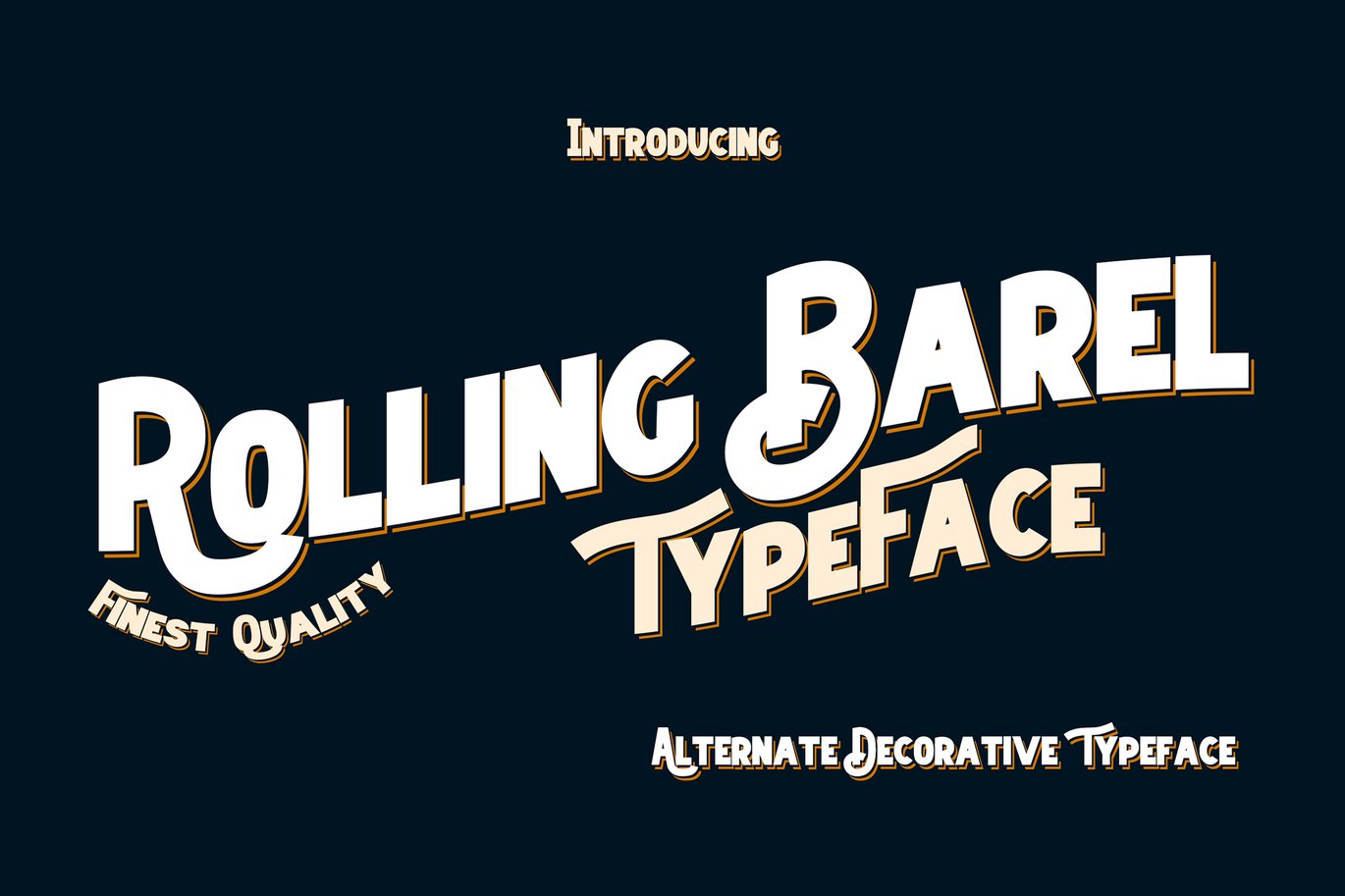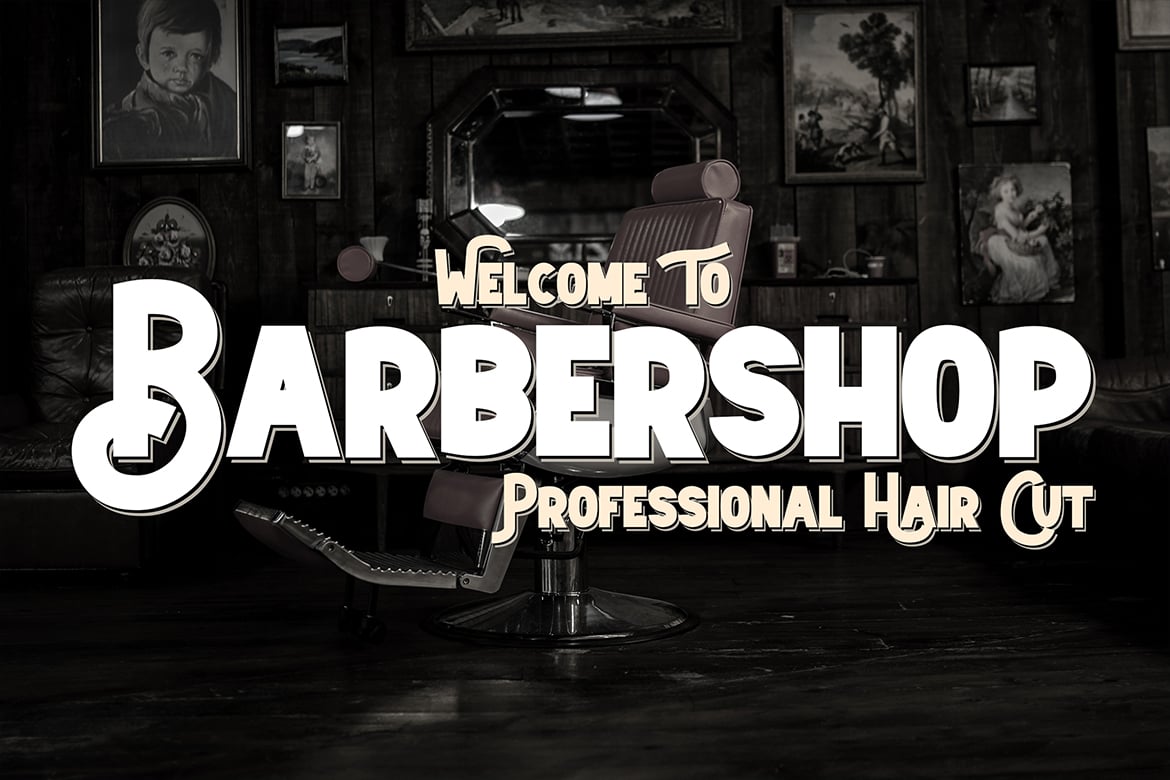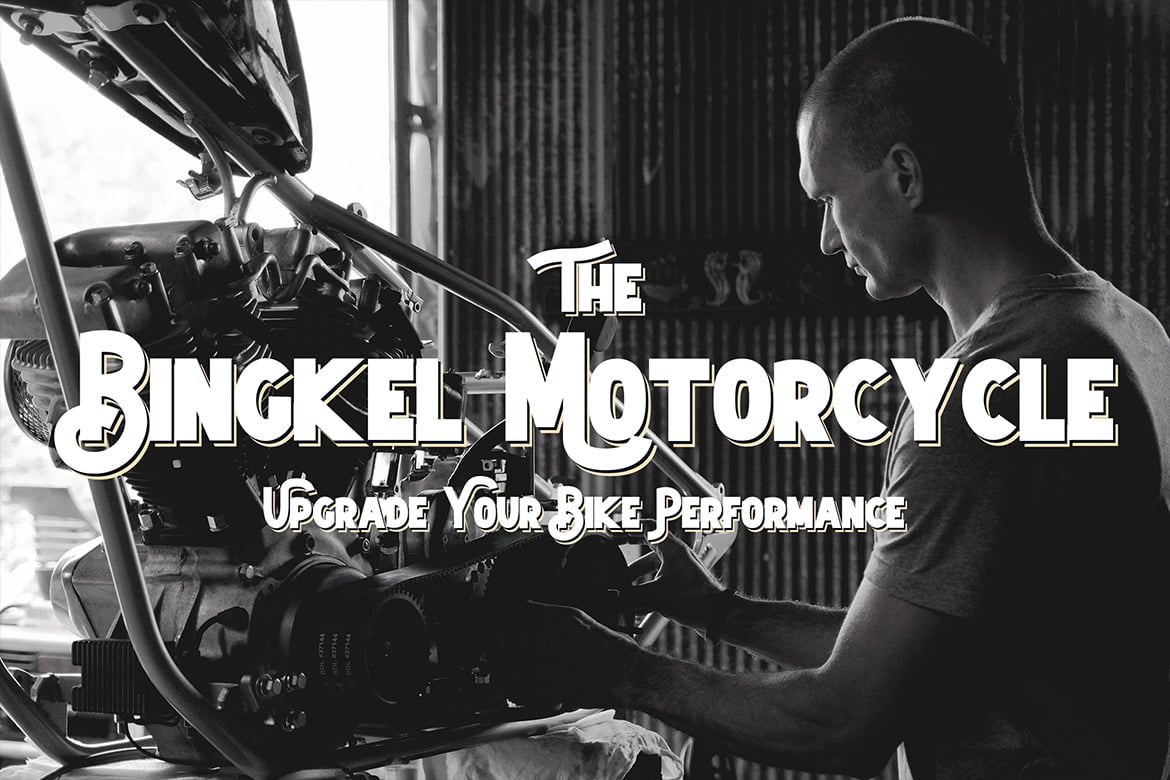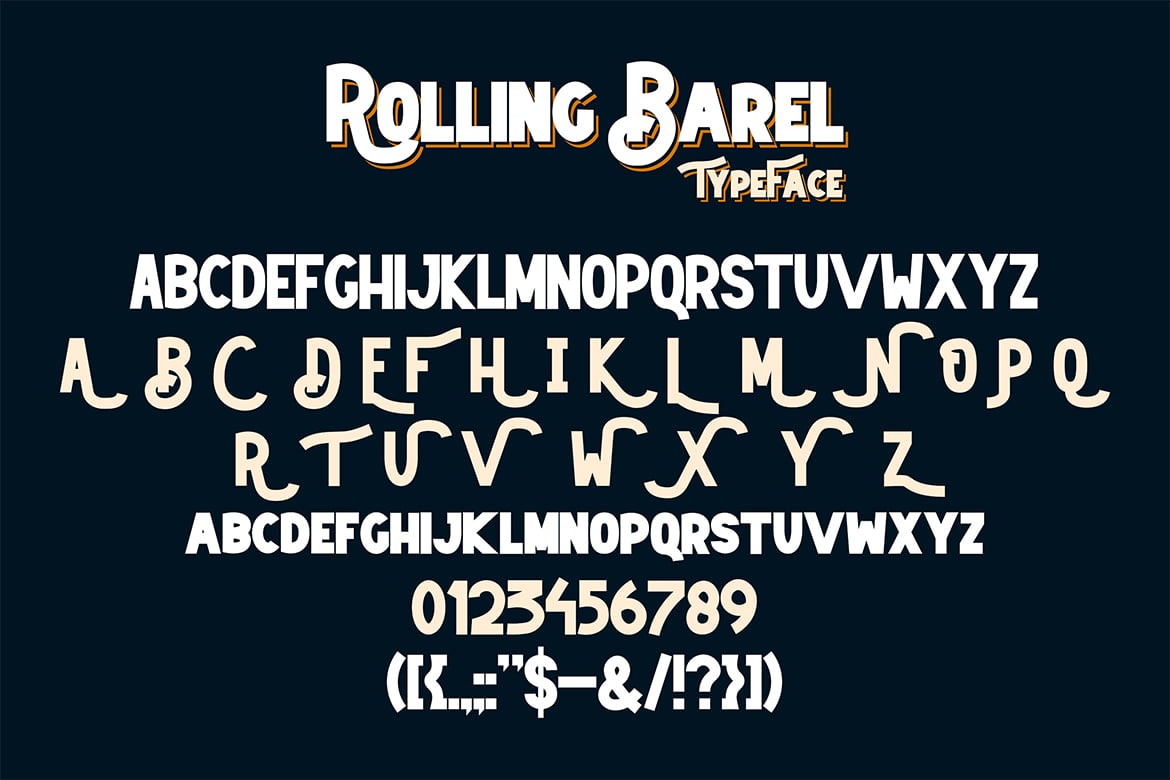
Rolling Barel Font
Introducing our new product the name is Rolling Barel. Modern san-serif Fonts. This font is perfectly suited for a wide variety of projects, such as signature, stationery, logo, wedding, typography quotes, magazine or book cover, website header, clothing, branding, packaging design, and more. Also, fashion-related branding or editorial design displays both masculine and feminine qualities.